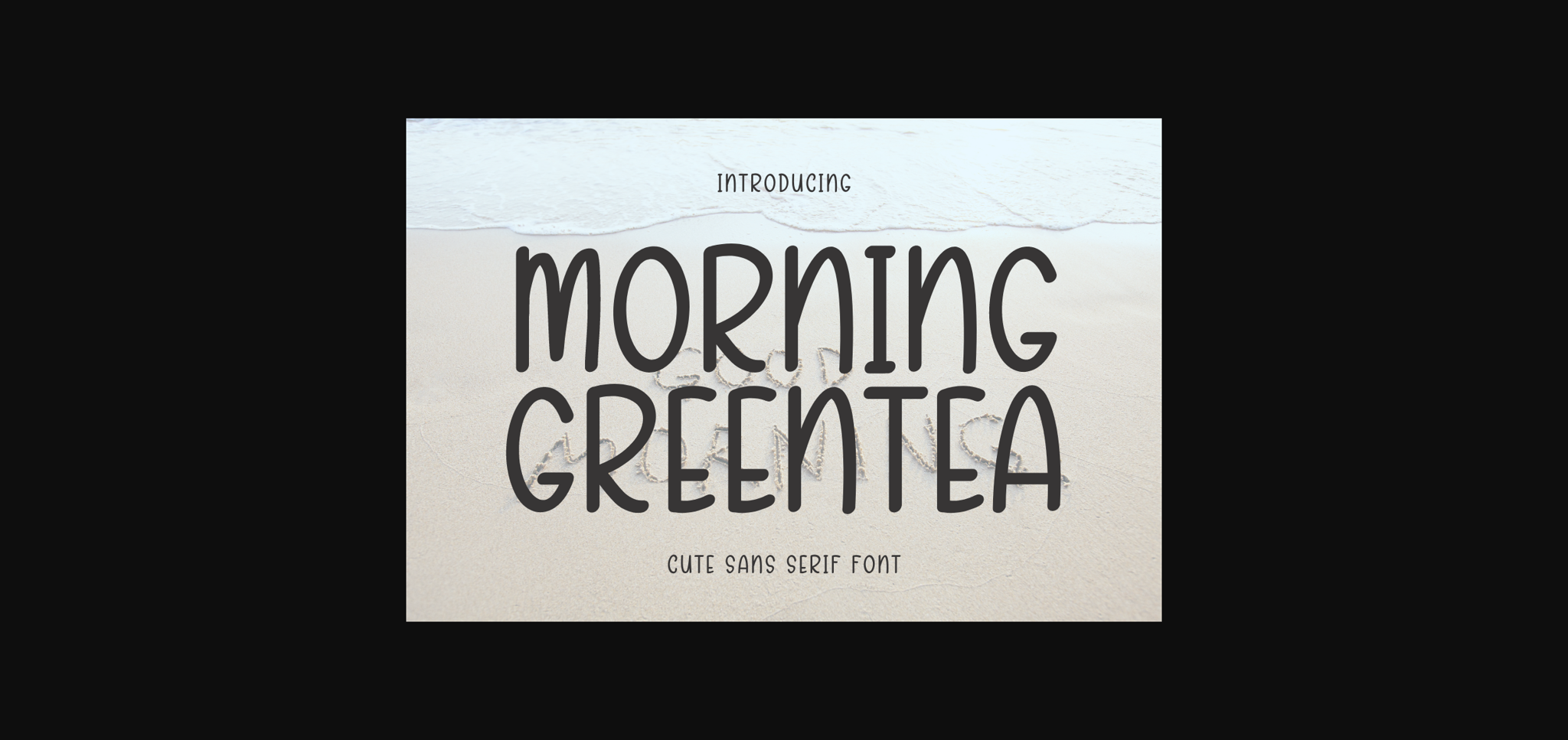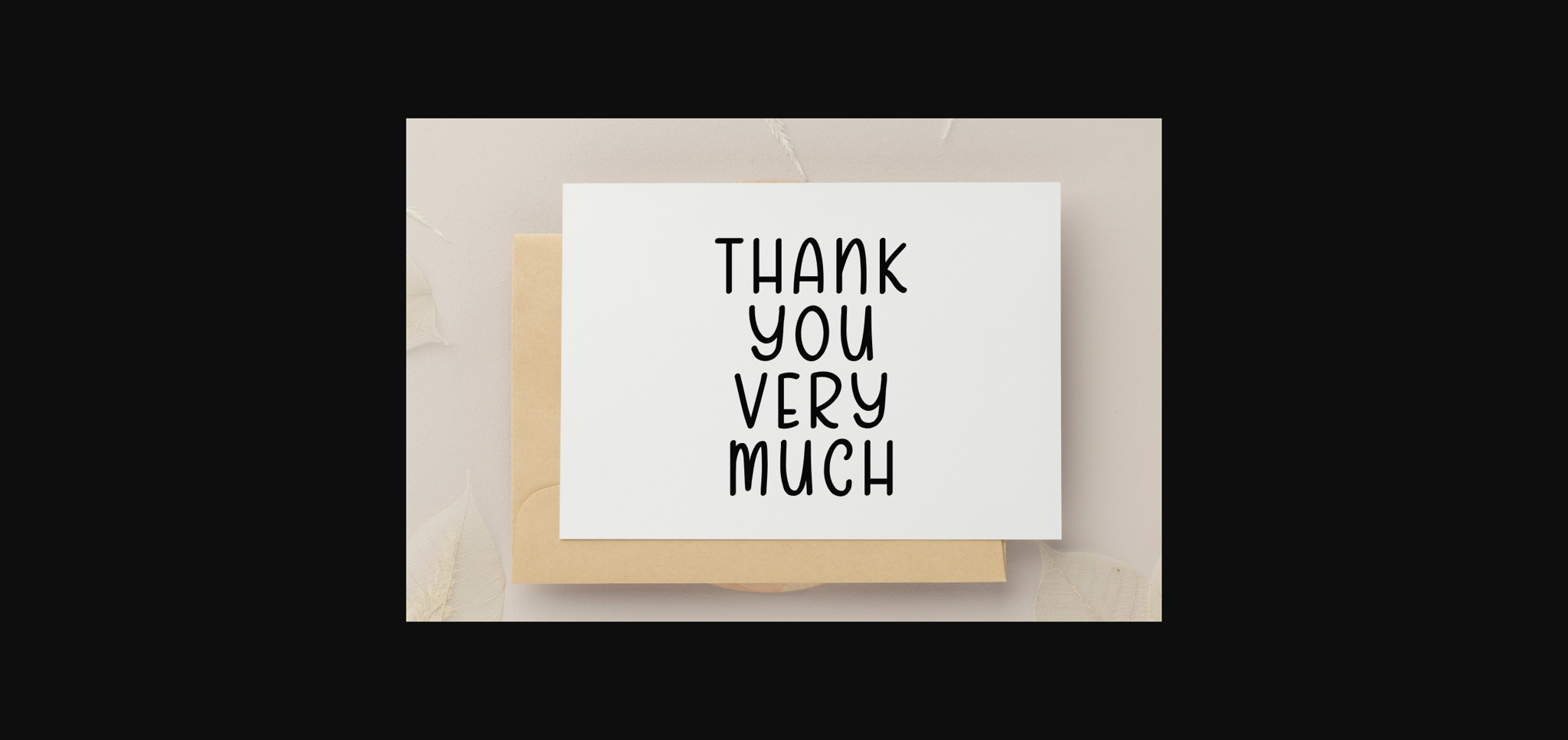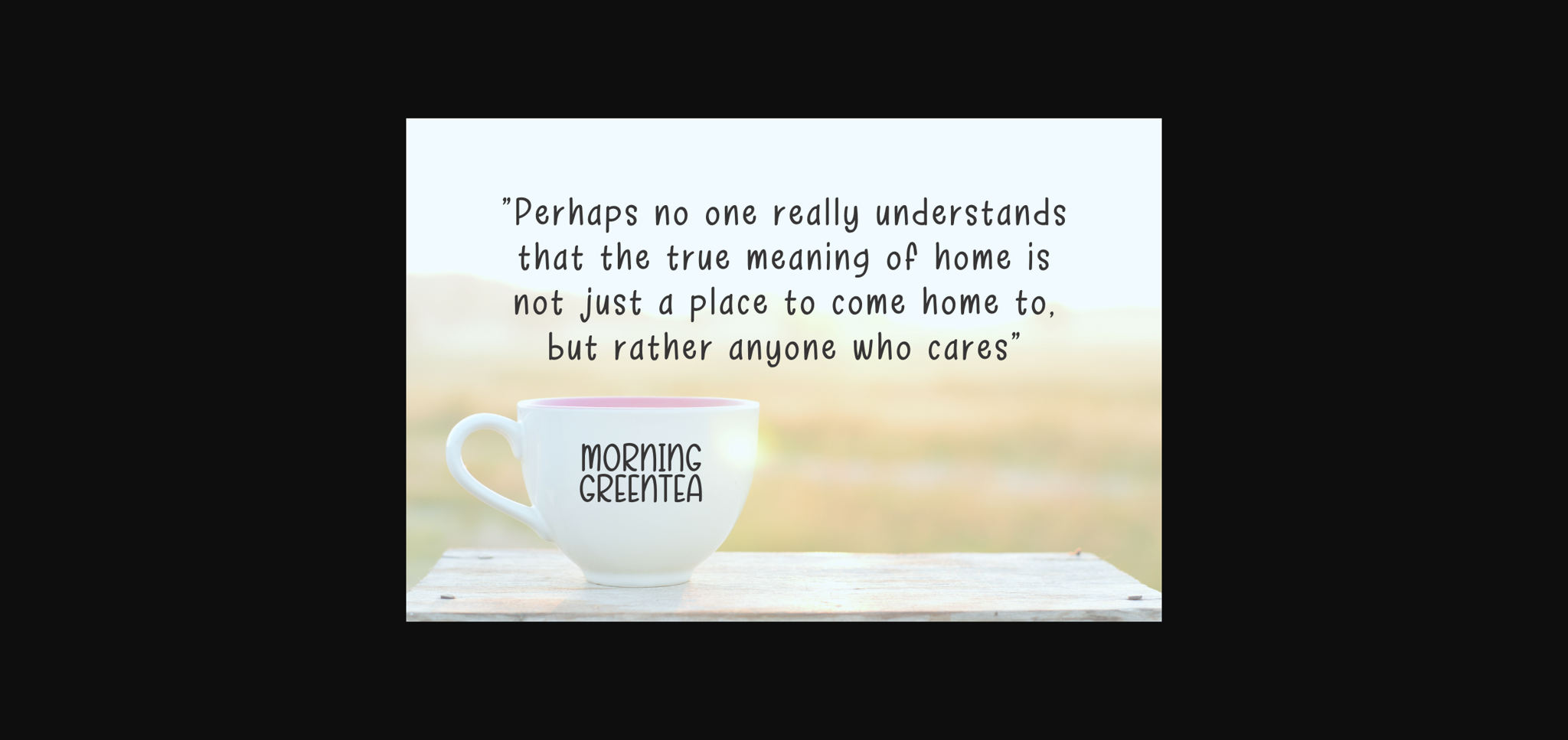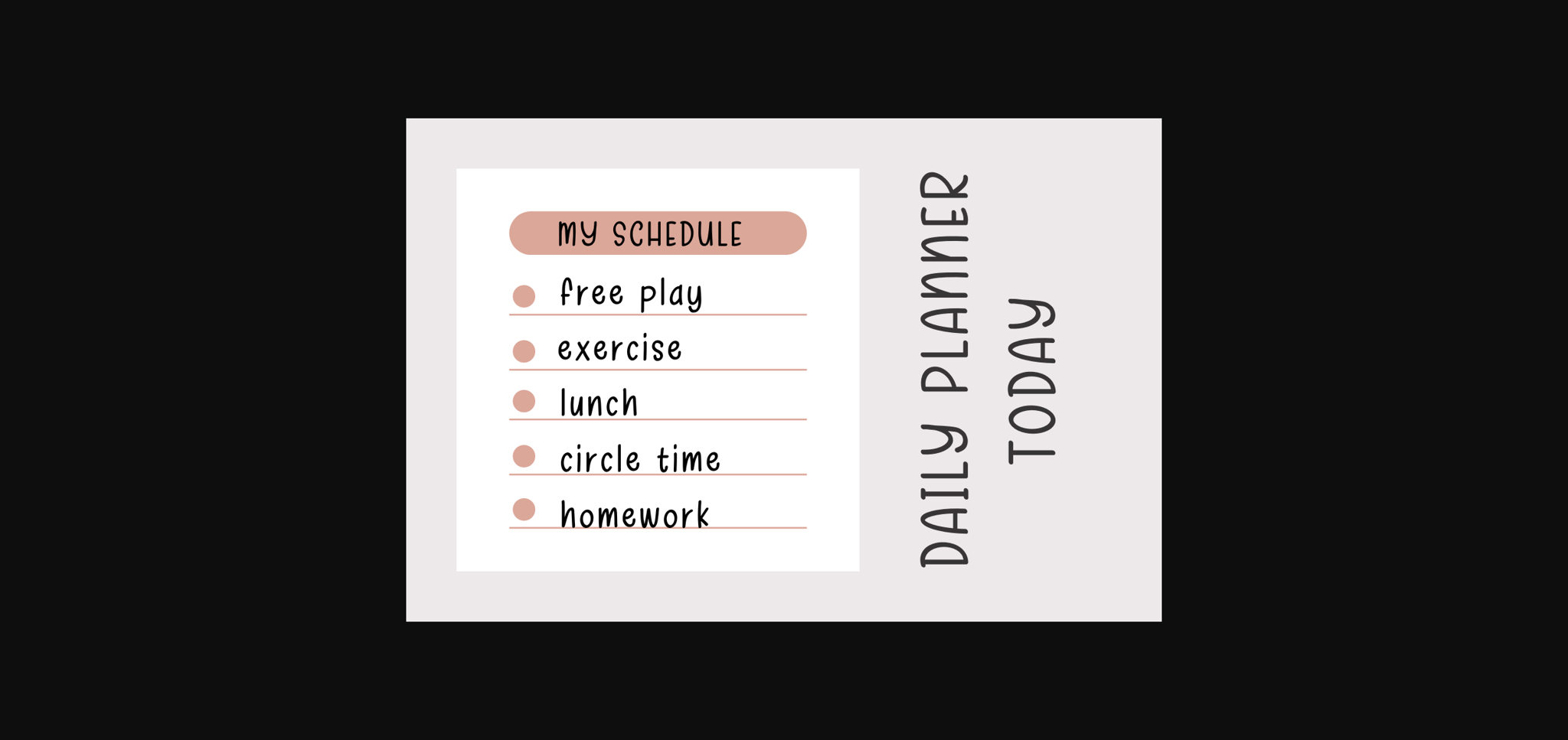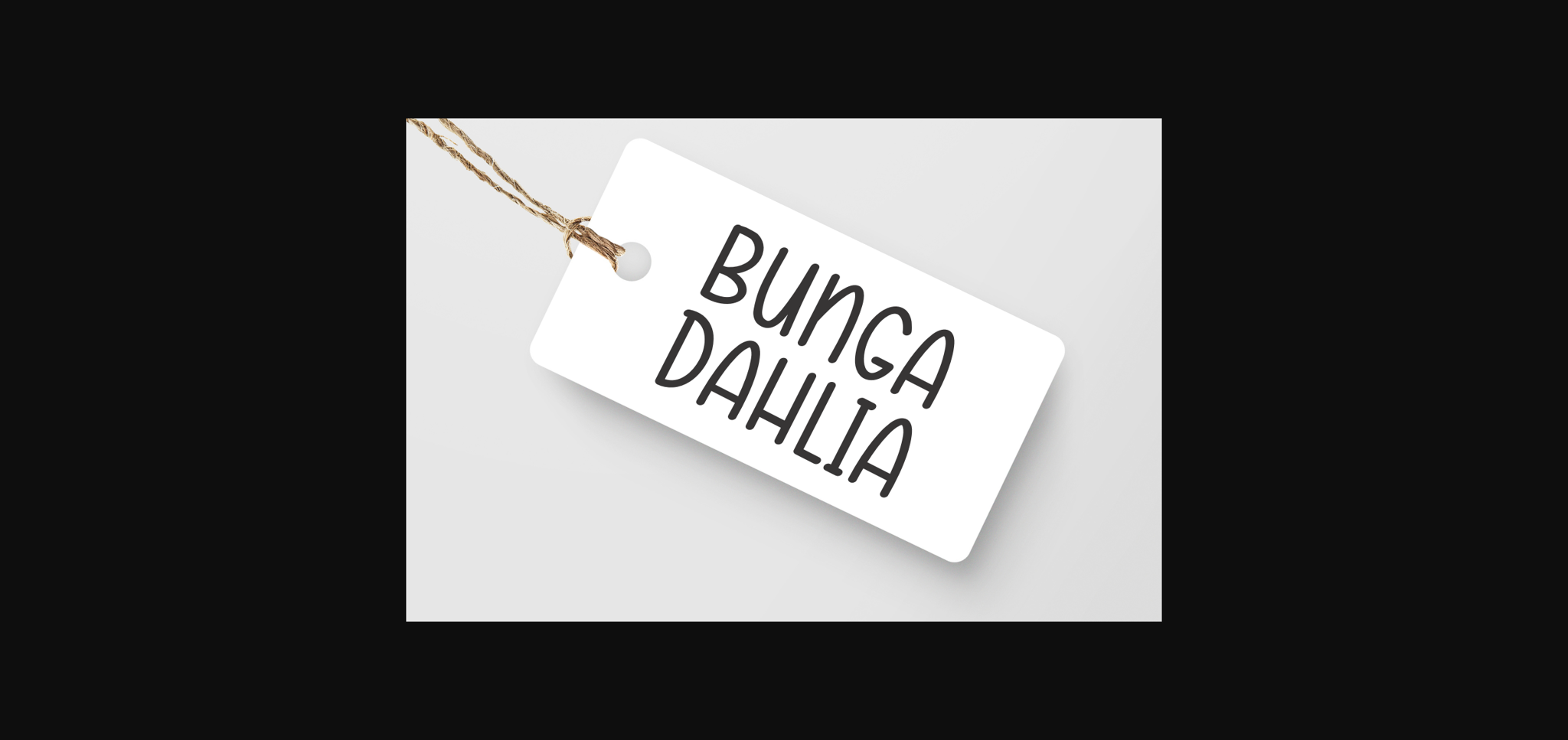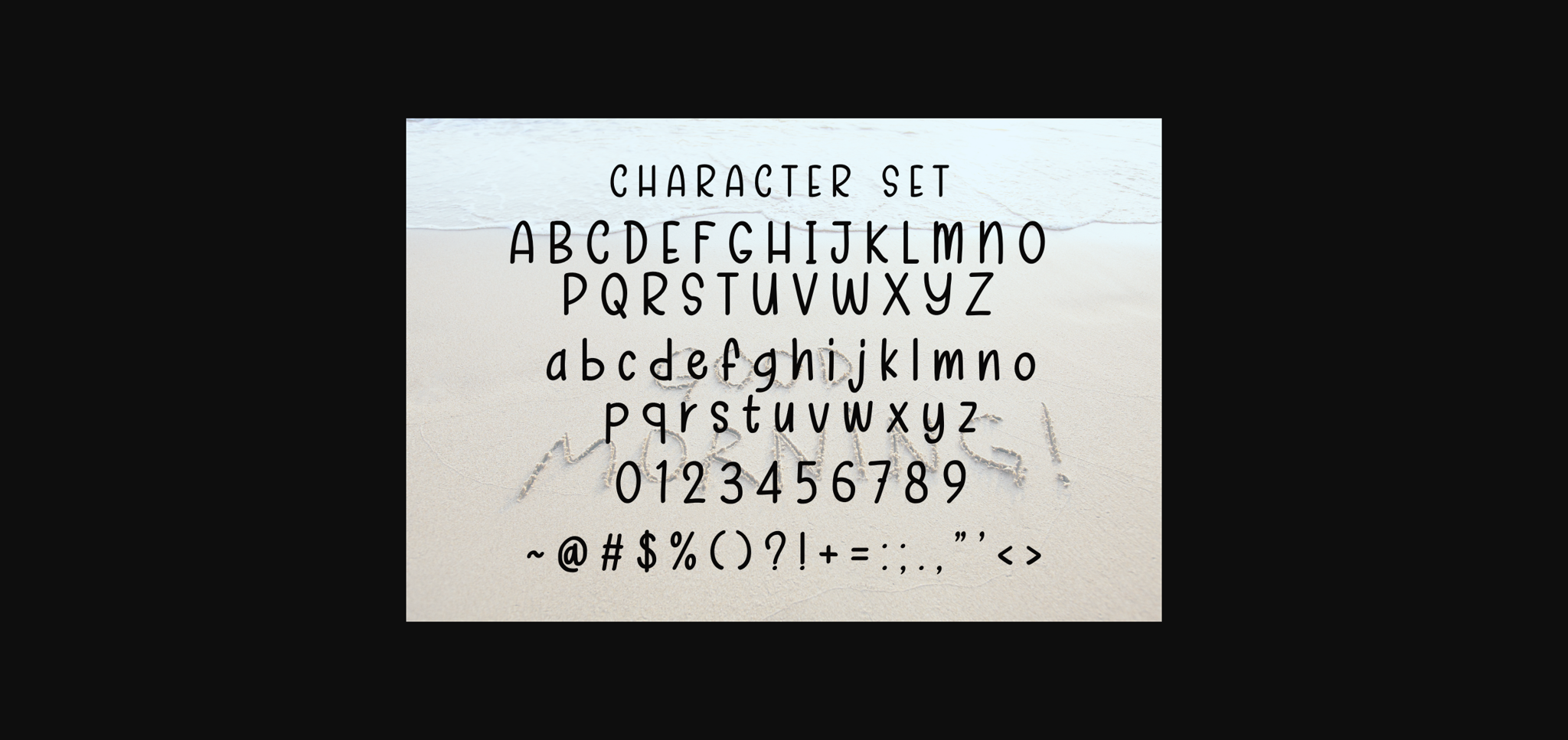
About Morning Greentea Font
Morning Greentea is a cute and neat sans-serif font. Perfect for card designs, crafts, digital designs, presentations, social media designs, digital planners, and many more.